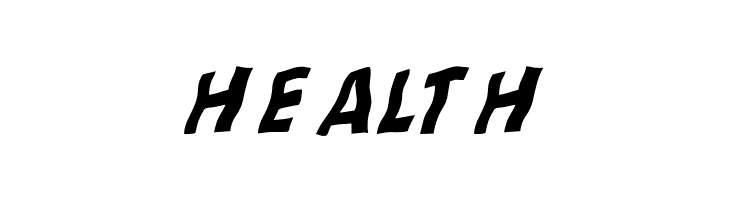
A bold, geometric font with sharp angles and a modern aesthetic.
A playful, handwritten font with bold, rounded characters and a whimsical style.
A bold, high-contrast serif font with a modern and dramatic style.
A bold, wide, and italic font with high contrast and sharp edges.
A bold, dynamic script font with high contrast and decorative flourishes.
A modern, elongated font with narrow characters and a sleek appearance.
A geometric, angular font with a modern and bold design.
A modern, geometric font with uniform line thickness and rounded edges.
A bold, modern font with rounded edges and a slight slant.
A bold, angular serif font with ancient Greek and Roman influences.
A futuristic, italicized typeface with rounded edges and a sleek, modern appearance.
An elegant script font with flowing, calligraphic elements and ornate flourishes.
A bold, geometric font with a condensed, Art Deco-inspired design.
A bold, geometric font with a modern, structured design.
A geometric, angular font inspired by ancient inscriptions, ideal for modern design projects.
A bold, decorative script font with a playful and sophisticated style.
A modern, geometric font with circular elements and a futuristic style.